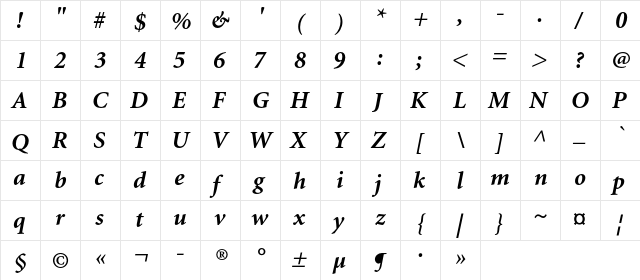
Miniature Bold Italic
Design Context for Miniature Typeface
Miniature is a composed and adaptable typeface that performs quietly and consistently across a wide range of design contexts. Its italic angle brings a sense of urgency and motion to the letterforms. Its bold stroke weight gives it real presence on the page.
Pro Tip: Try Miniature for annotation and caption copy alongside an upright companion — the contrast in angle creates a dynamic but ordered typographic system.